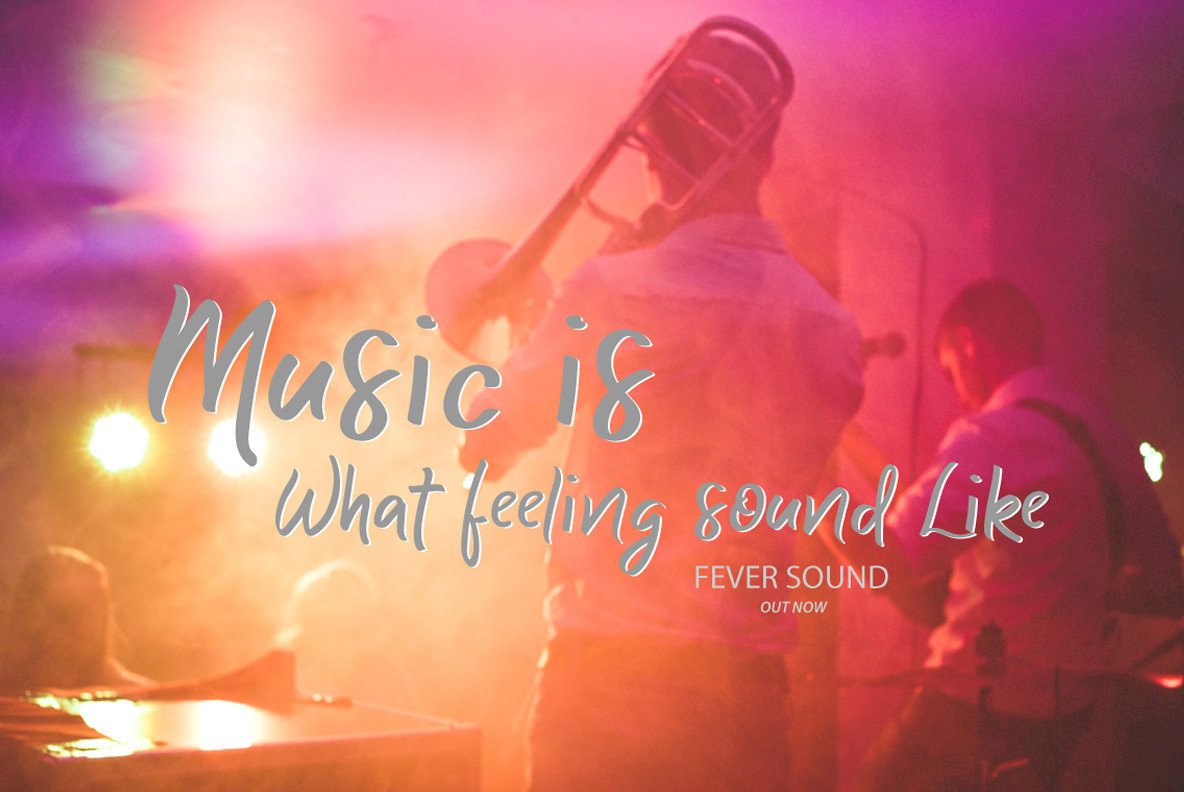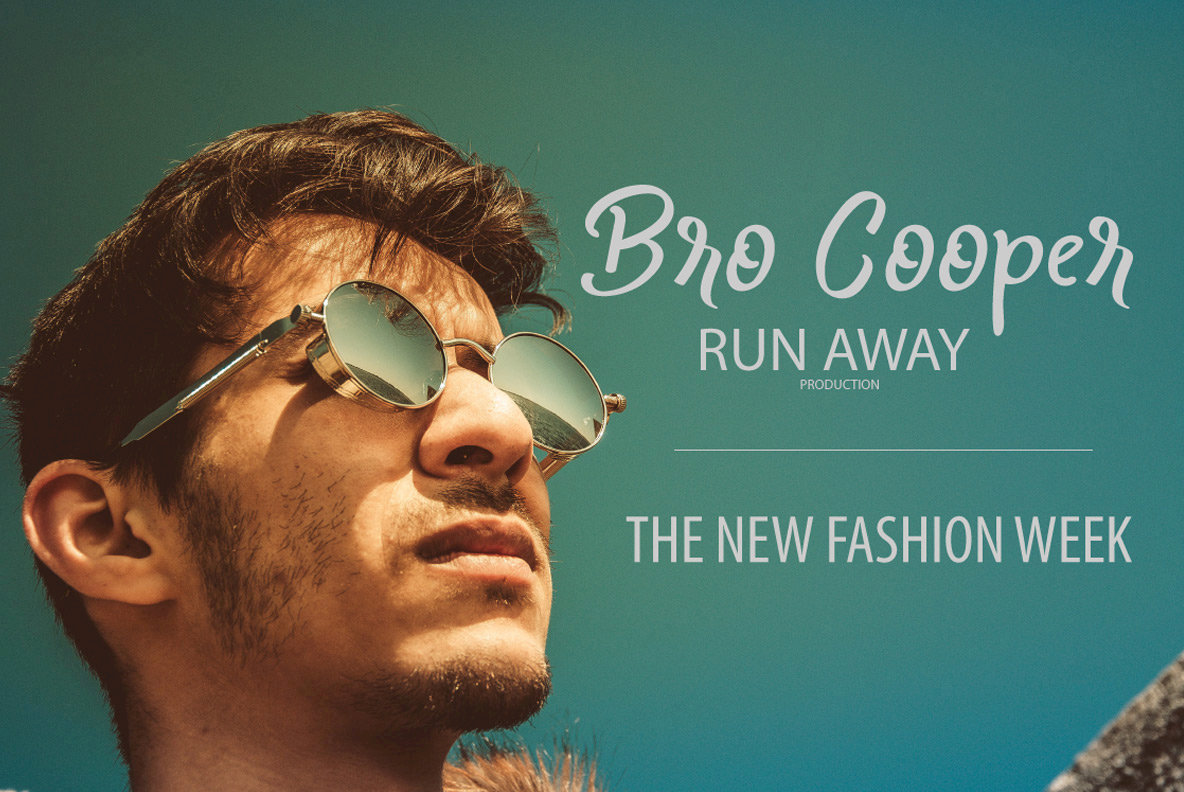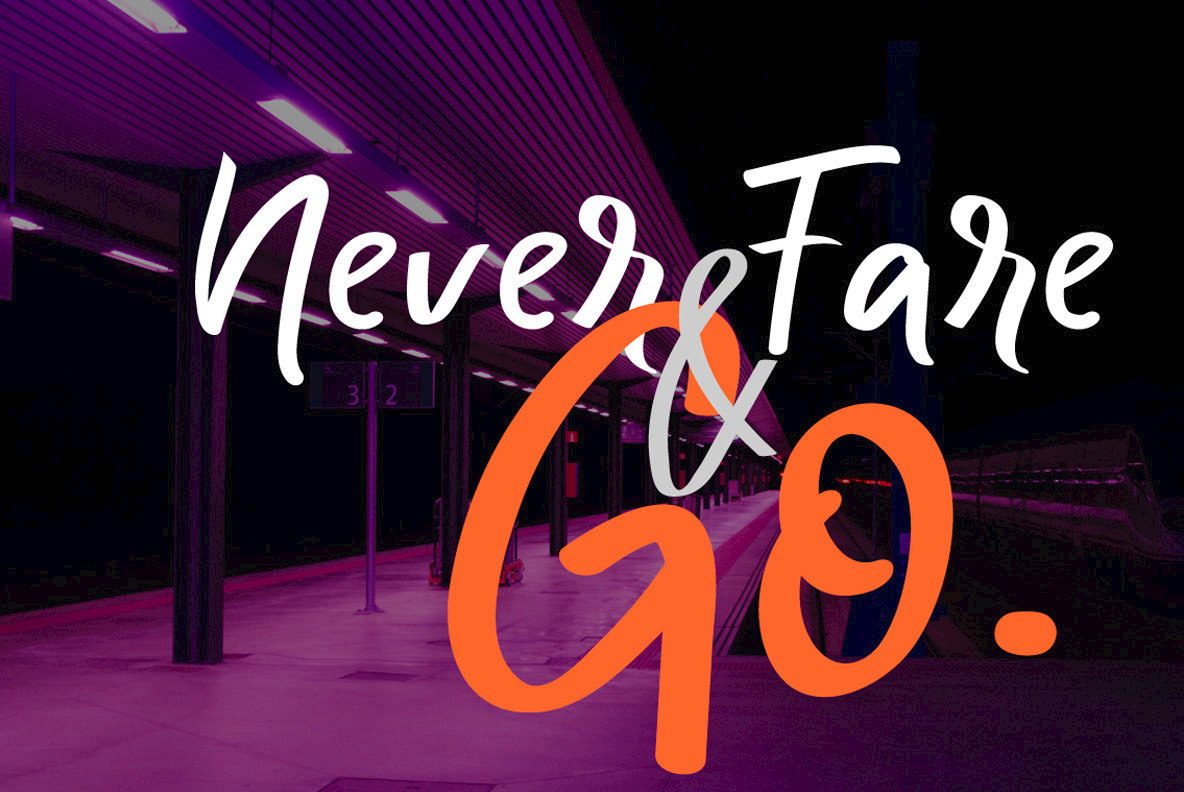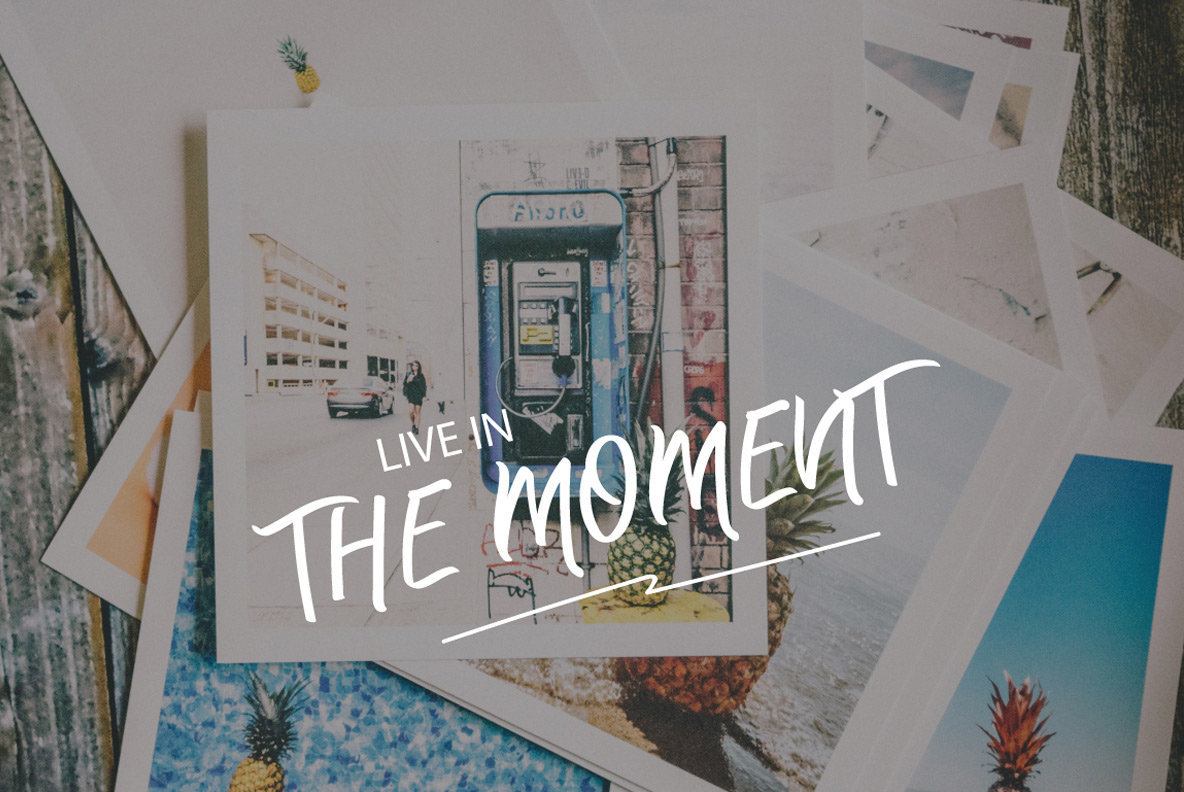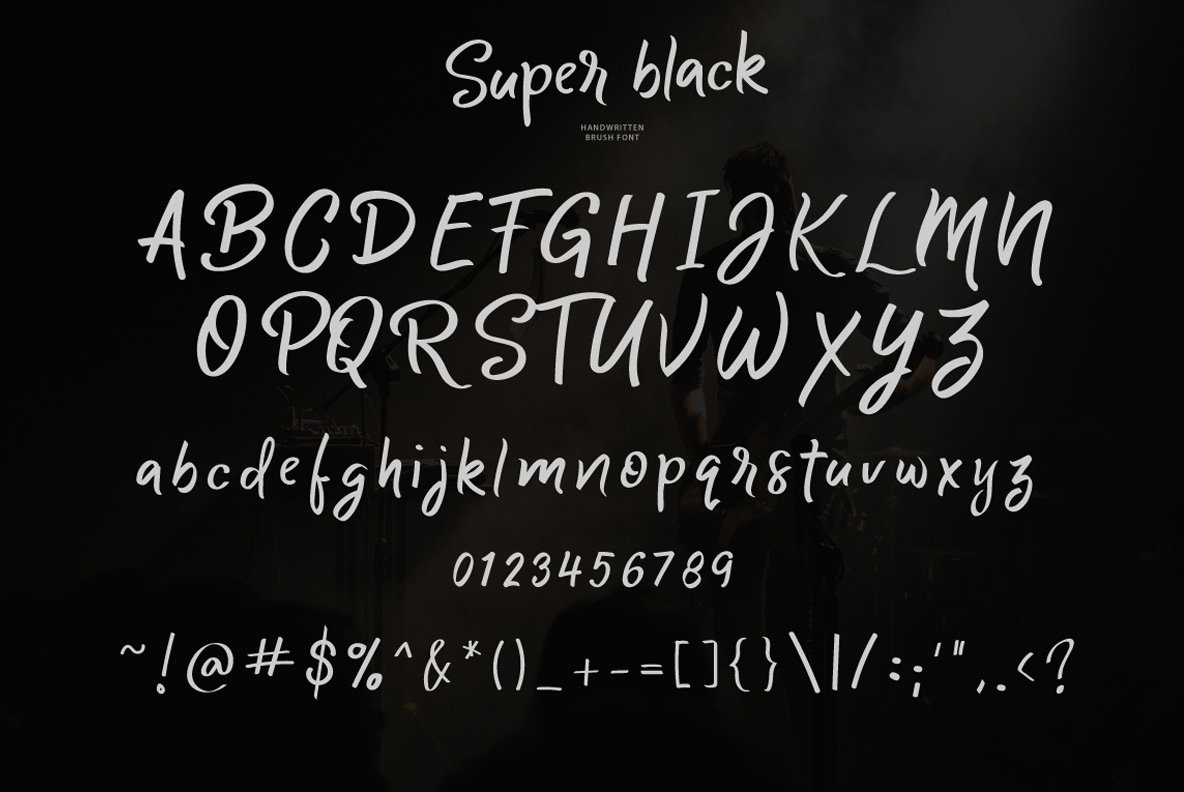
Super Black Font
Super Black
Infuse your designs with the bold and dramatic Super Black font. With its expressive brush strokes, this font is perfect for projects that require a touch of edginess and personality. Super Black comes equipped with upper and lowercase letters along with numerals, making it a versatile choice for enhancing your creative expressions.Super Black: Dynamic Brush Style for Bold Creations